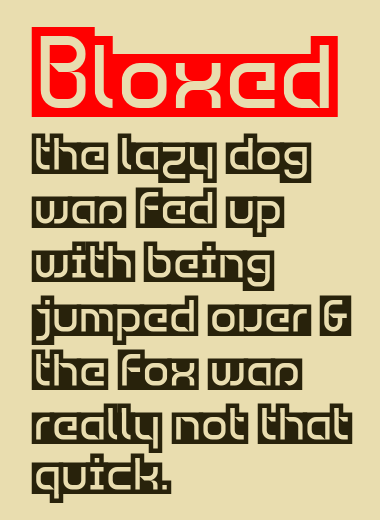
Bloxed
Inspired by
Afrojet's Gaga Regular
&
Saberrider's Pluto
:
Negative use of FS bricks for reverse glyph building.
Very effective - and I love the sample ... that dog must get really p*ssed off.
Love the & !
@p2pnut after reading that phrase so many times I wondered at the dog's laziness:)
@igorrorsi me too!
Nice sample :-) And nice Typeface, too.
I'm inspired.